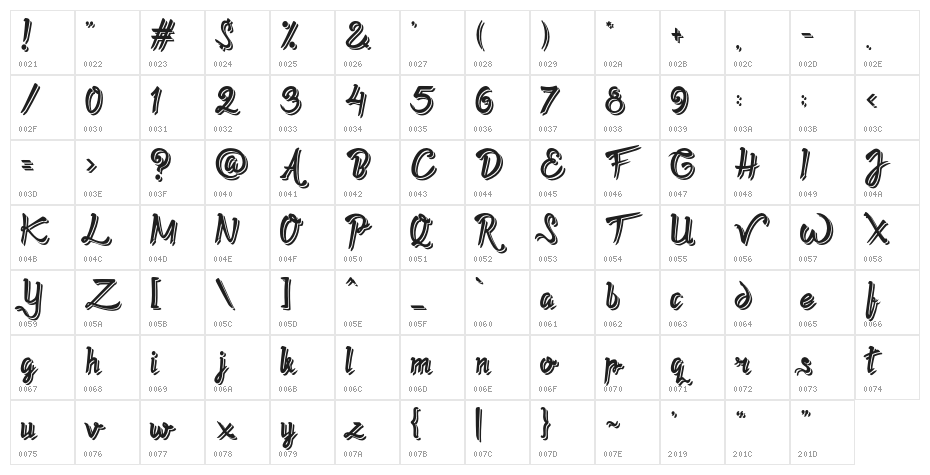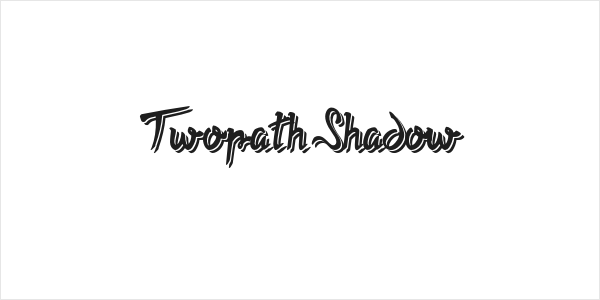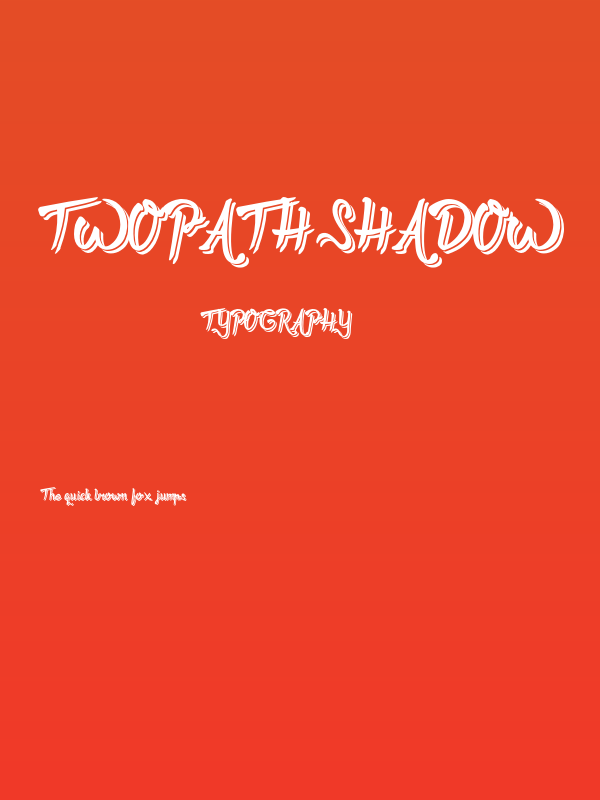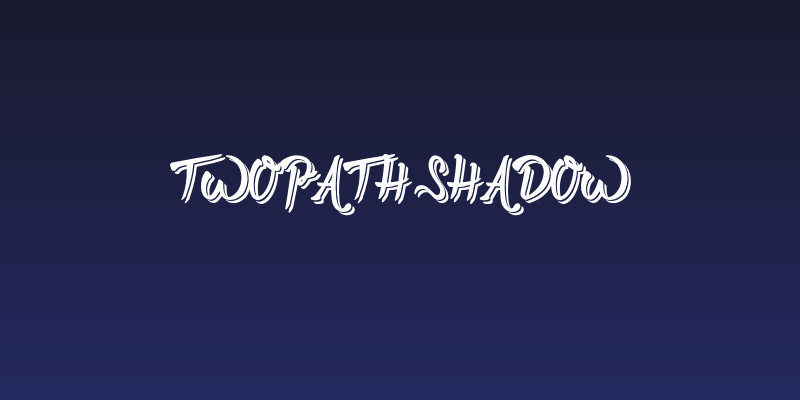
Twopath Shadow Font
Twopath Shadow Description
This font features a bold and dynamic script style with a shadow effect that adds depth and dimension to each character. The uppercase letters are tall and slightly slanted, giving a sense of movement and energy. The lowercase letters maintain a consistent flow, complementing the uppercase with their rounded and connected forms. Numbers and special characters follow the same stylistic approach, ensuring uniformity across all elements. The shadow effect enhances the visual impact, making it suitable for eye-catching designs.
| Proposed Projects | Ideal for branding, posters, headlines, and any design requiring a striking and energetic script style. |